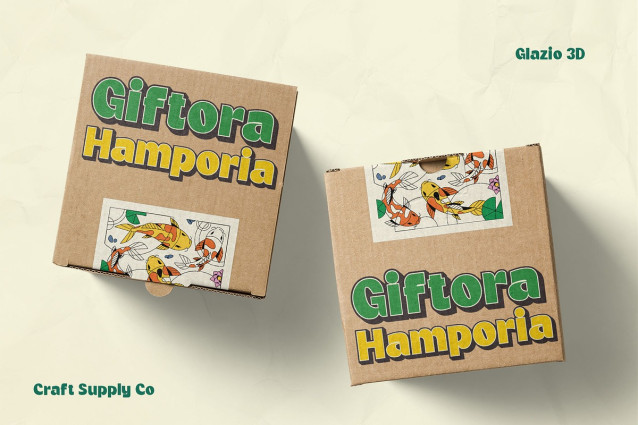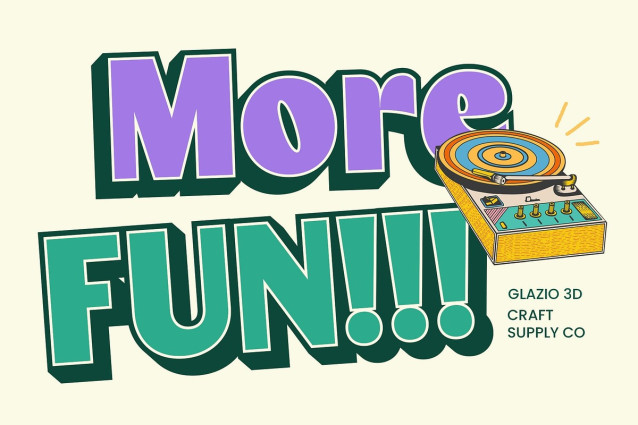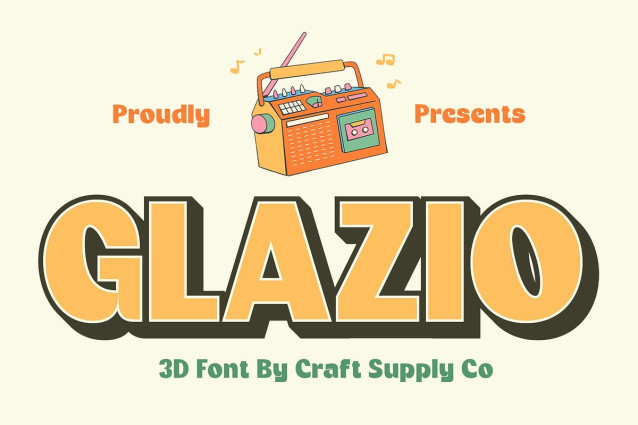
Glazio 3D Font
Glazio 3D Font is a modern sans-serif font that features bold, rounded letterforms combined with a captivating 3D effect. Designed to radiate charm and character, this font delivers a cute, funky, and energetic presence perfect for projects that aim to express joy, personality, and fun. Whether you’re designing for kids or creating something lively and full of imagination.
Rounded and Bold for Maximum Appeal The bold structure and rounded edges give Glazio 3D a welcoming, soft aesthetic while still commanding attention. Its exaggerated proportions create a strong visual impact, while the friendly shapes ensure it remains approachable and fun.
3D Depth for Dynamic Presence The subtle yet effective 3D rendering adds depth and dynamism, making each letter pop with dimension. This playful layering effect gives your typography a standout quality ideal for captivating visual experiences.
Perfect for Fun and Creative Designs Whether you’re working on children’s branding, playful posters, colorful packaging, or vibrant logos, Glazio 3D injects joy and personality into your designs. It’s the perfect blend of fun and function, made for projects that want to be seen and remembered.
Versatile, Friendly, and Eye-Catching Glazio 3D is more than just cute—it’s a versatile typeface with bold structure and personality. From youthful themes to creative brand storytelling, it ensures your message is loud, clear, and bursting with character.